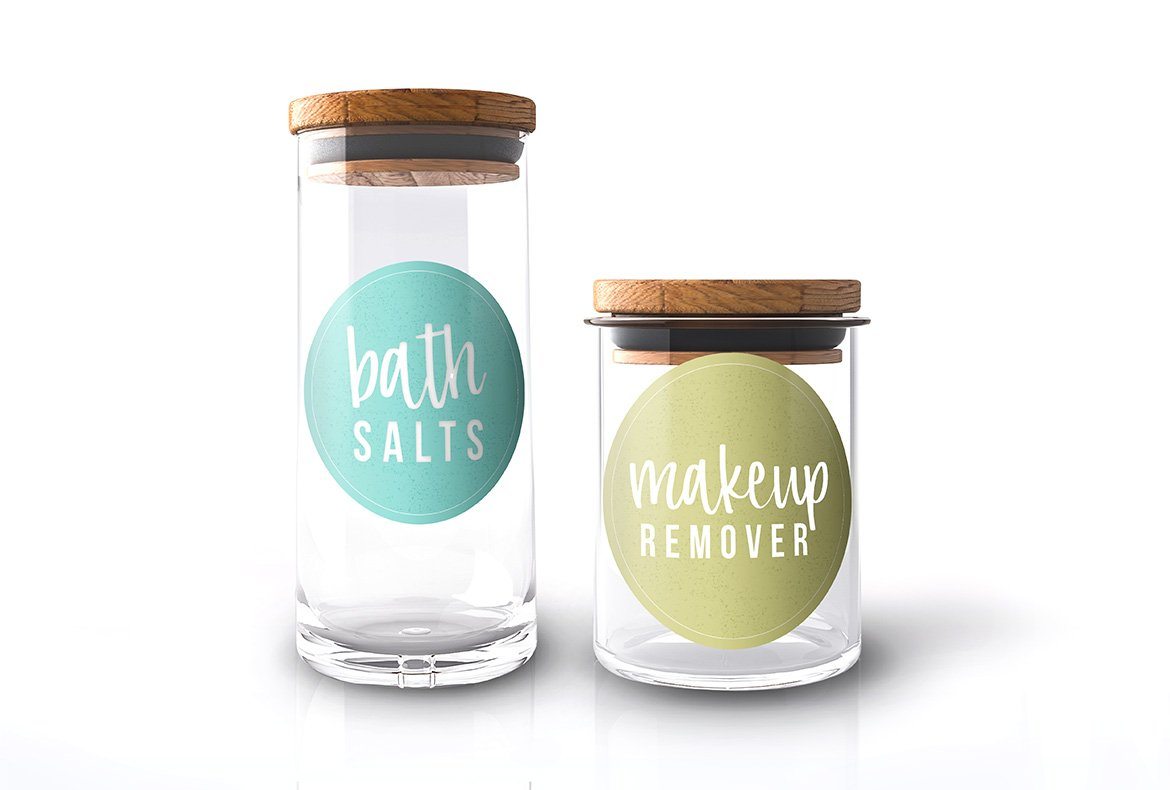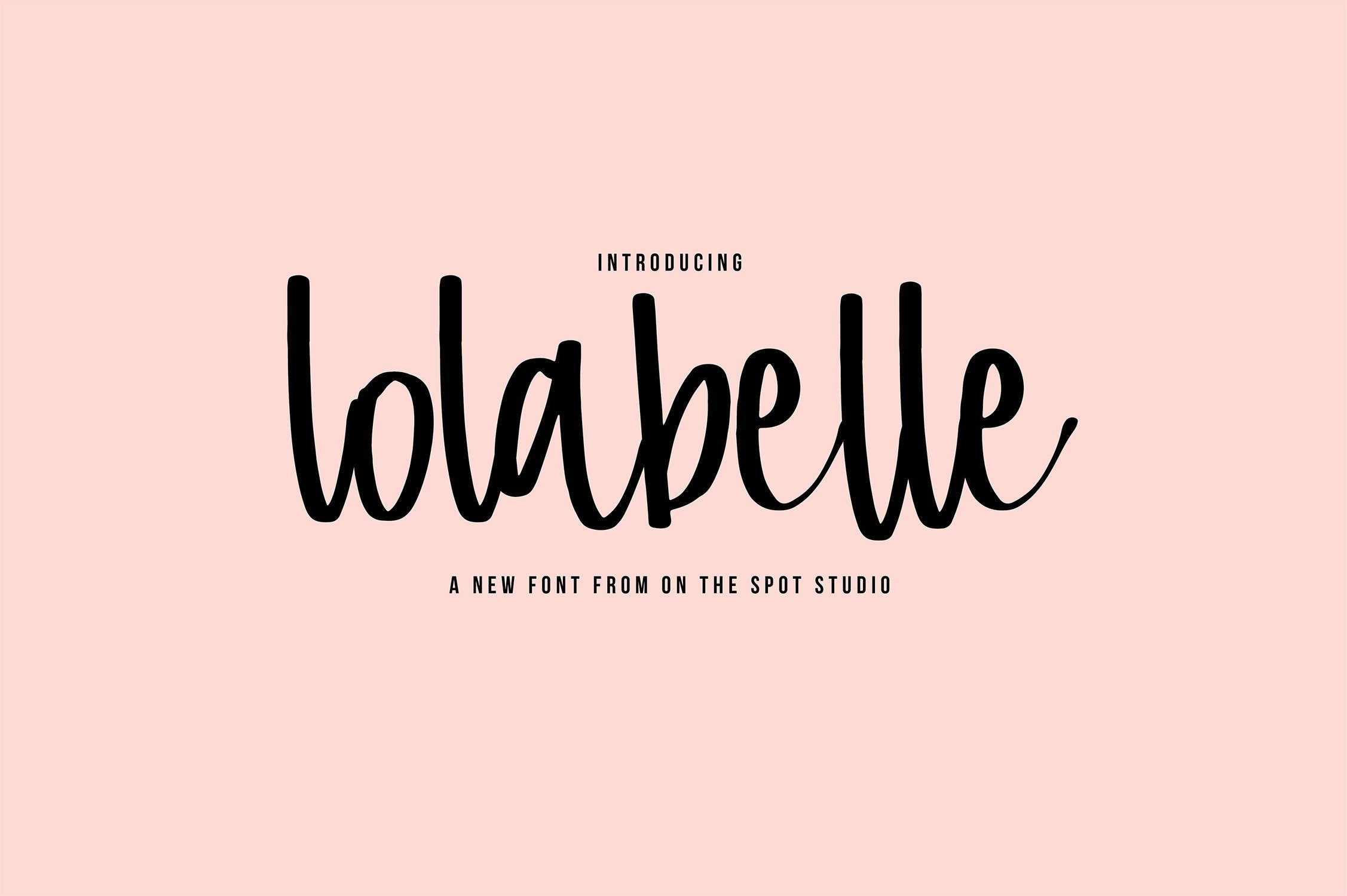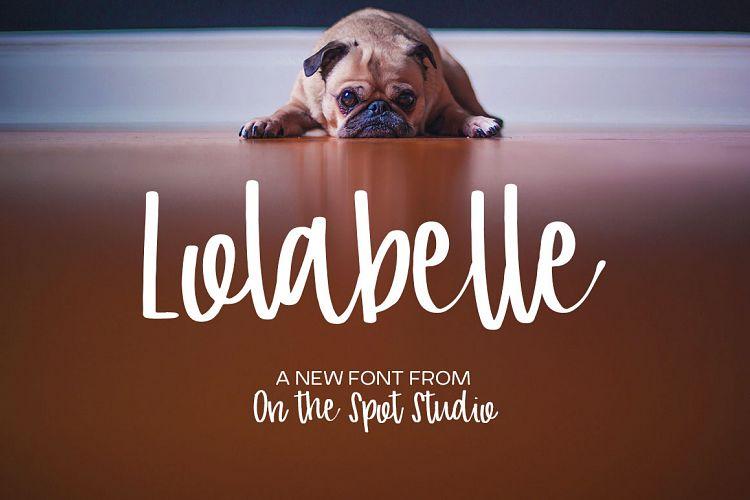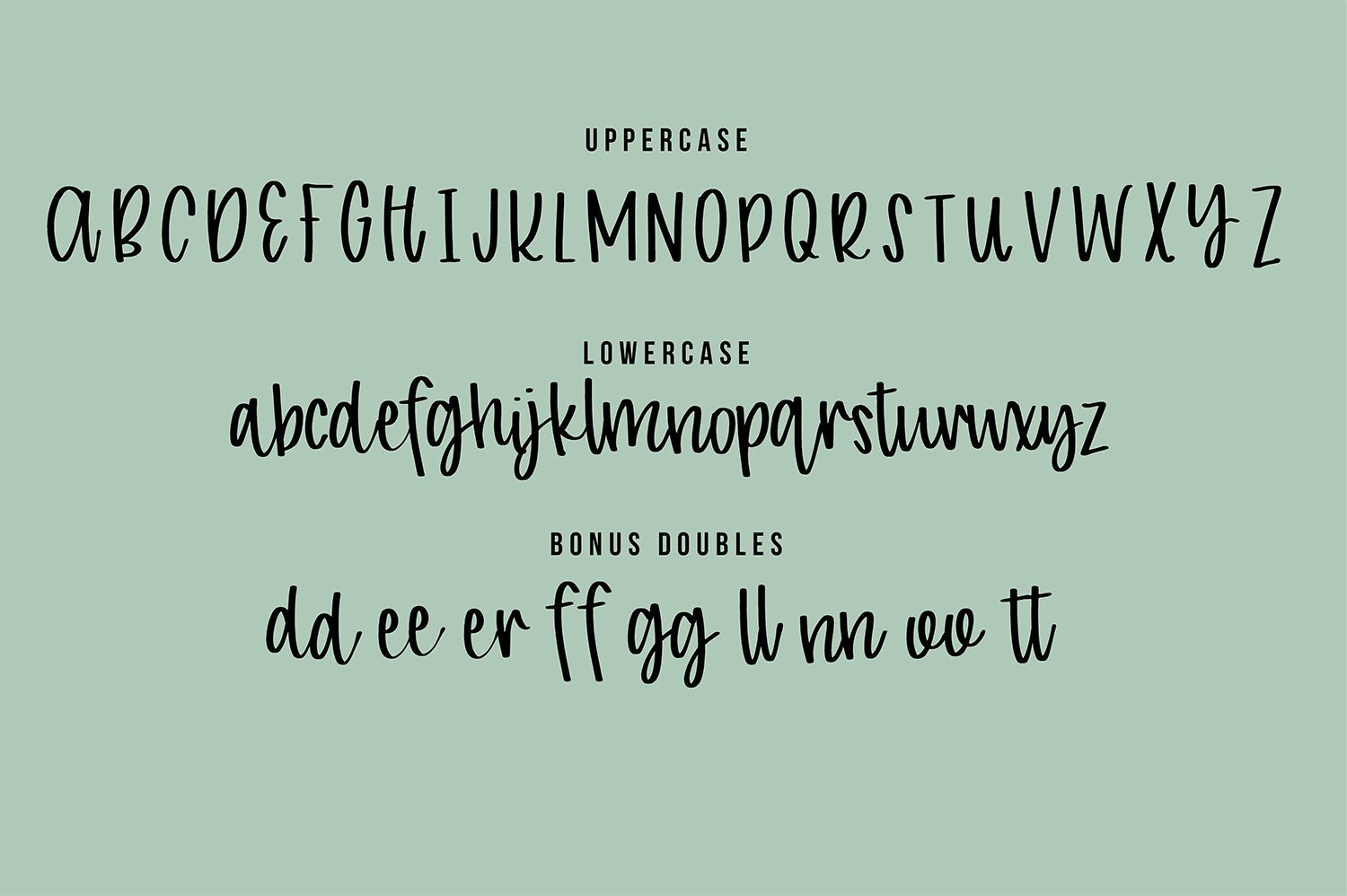
HomeScript FontsLolabelle Script Fonts Lolabelle FacebookXPinterestWhatsApp 1 of 5 ... ... ... ... ... About Lolabelle introducing lolabelle! lolabelle is a marker based script that gives the look of writing on paper with a sharpie! super casual yet upscale so can be used in any projects you may dream up 🙂 DOWNLOAD NOW People also explored Biancha Font Demillina Font Dreamy Font Wonderful Feather Font Smiletone Font Indesign Signature Font March Font Vidiya Font Jolly Chaser Font 192 0 TagsLolabelle Previous articleSilver Fox Font TrioNext articleChocolate Milk LEAVE A REPLY Cancel reply Comment: Please enter your comment! Name:* Please enter your name here Email:* You have entered an incorrect email address! Please enter your email address here Website: Save my name, email, and website in this browser for the next time I comment. Personal Use Free Cline Personal Use Free Read more about this font Boldist Personal Use Free Read more about this font Rennoya Personal Use Free Read more about this font Adelia Font Personal Use Free Read more about this font BLOG Using Fonts in Digital Marketing: Tips to Strengthen Your Brand Identity In the realm of digital marketing, every visual element plays a crucial role in shaping a brand's identity, and fonts are no exception. The... Free Fonts Risk: Why Free Fonts Can Be Dangerous for Designers To increase your work productivity, choose the most readable fonts. Top 7 Google Fonts Alternatives for Faster and Privacy-Friendly Web Design (2025)